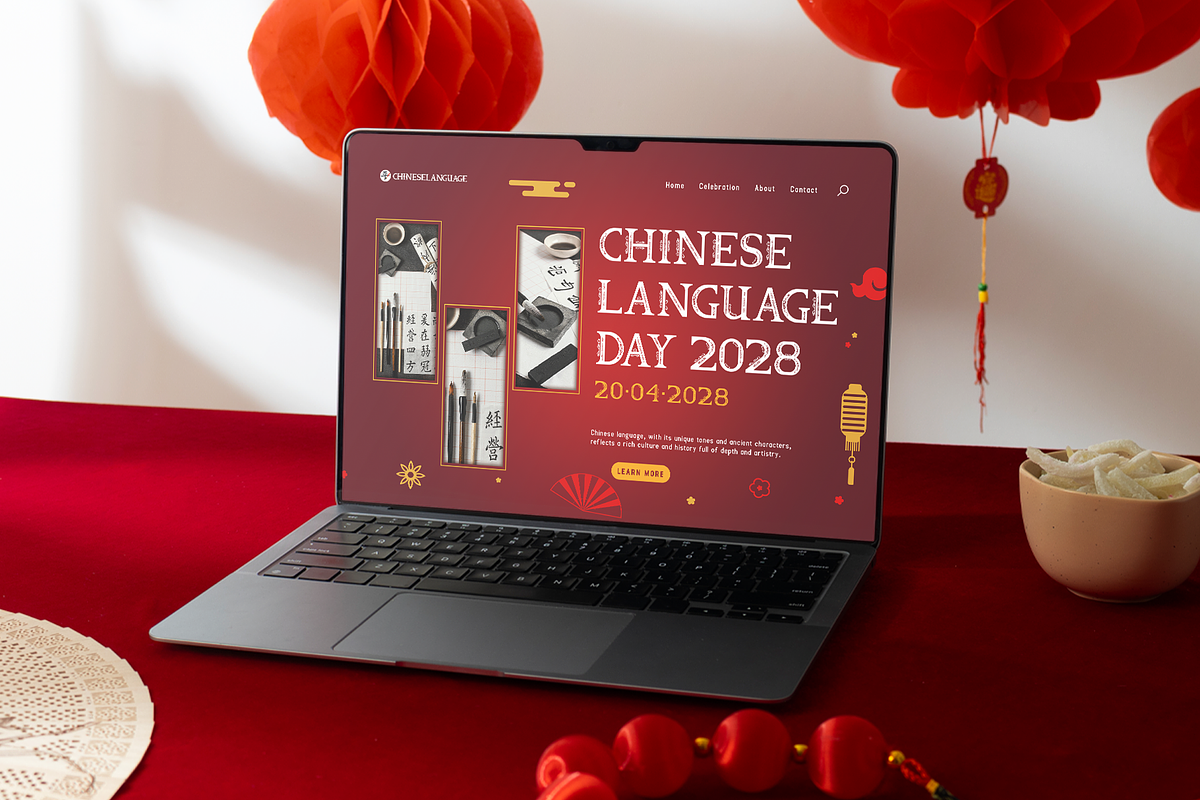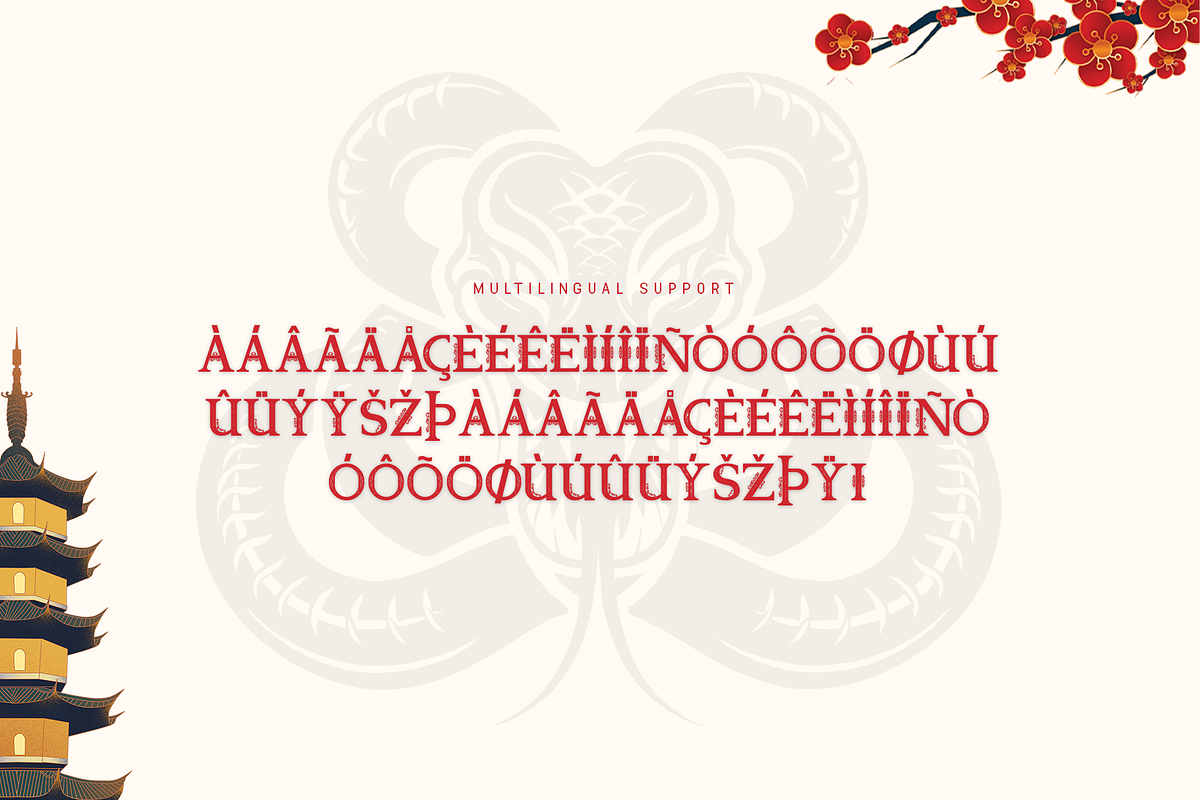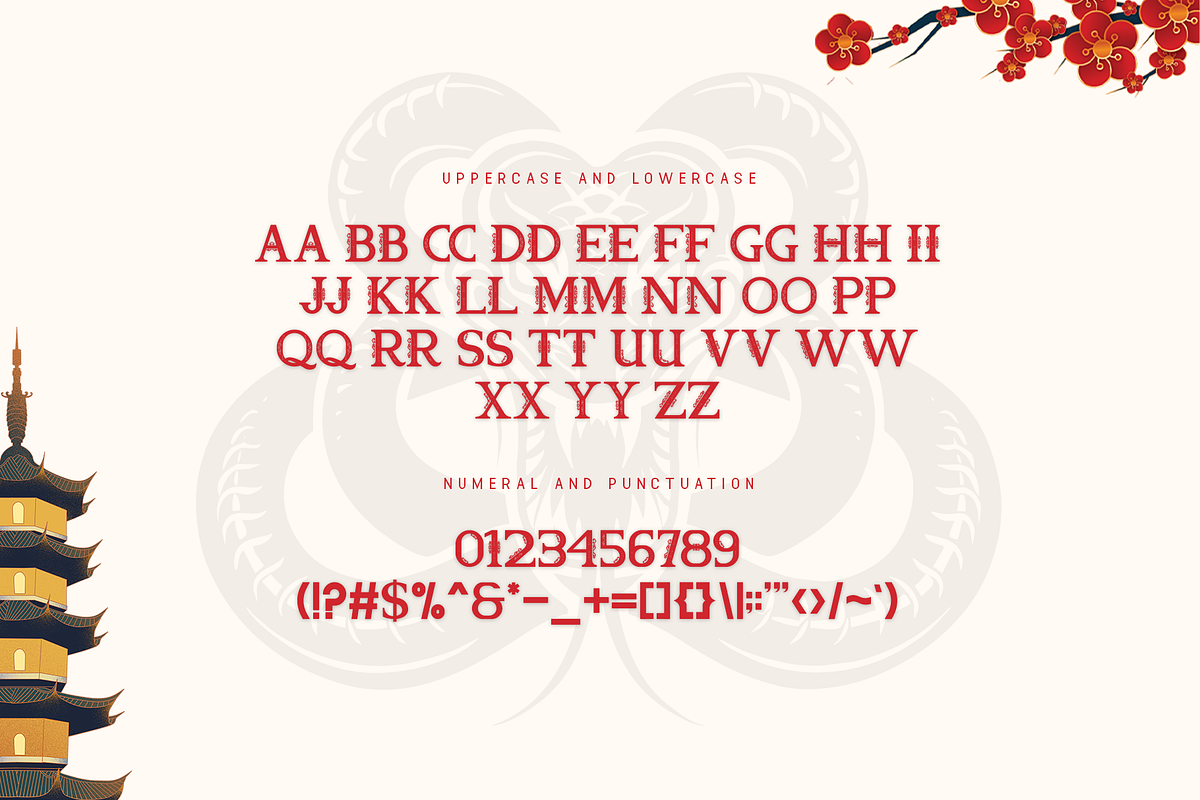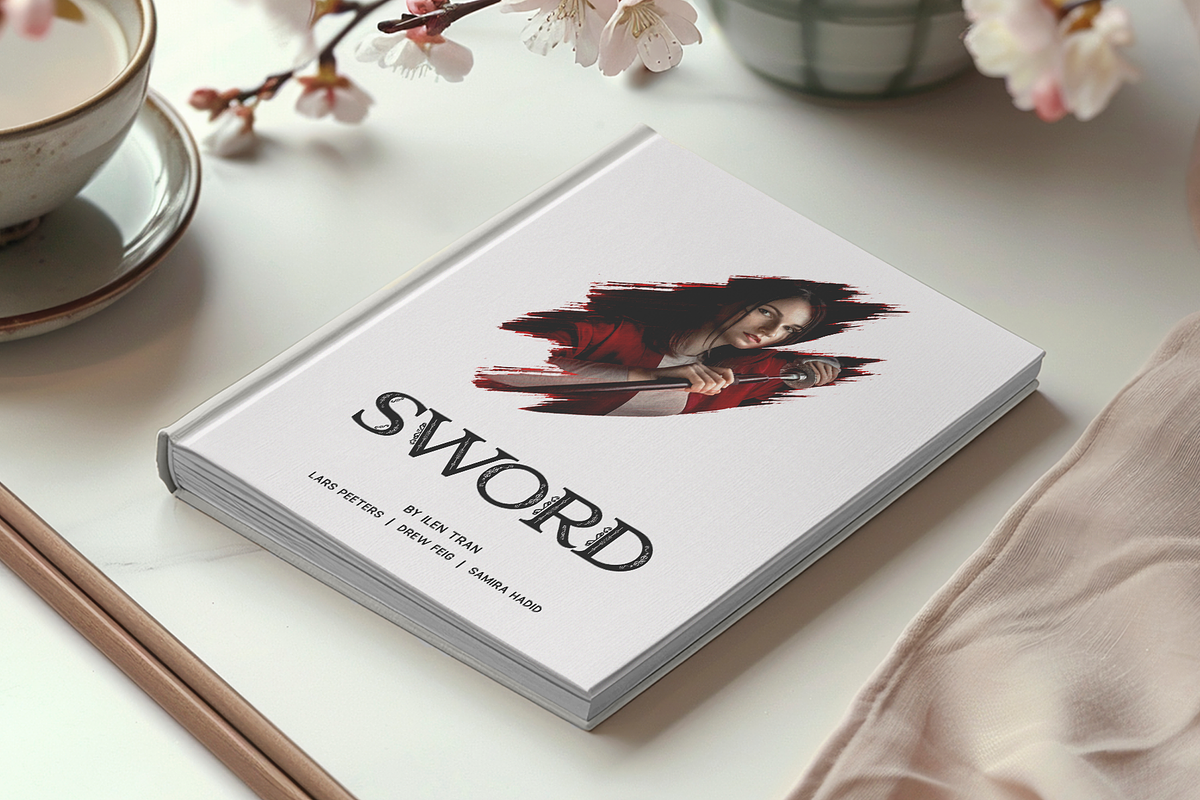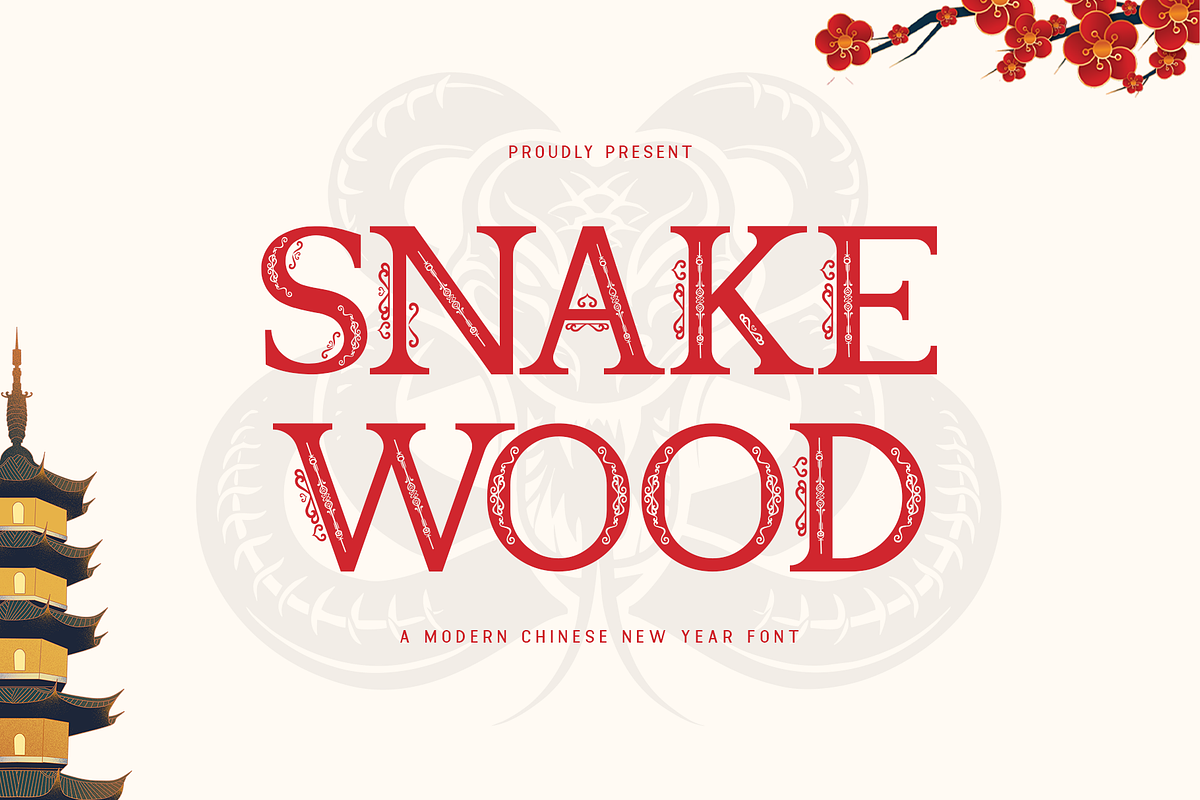
Snake Wood - Modern Chinese New Year
Snake Wood - A Modern Chinese New Year Font
Introducing Snake Wood, a modern font inspired by the harmony of nature and the serpentine grace of the snake. Perfect for Chinese New Year celebrations, this typeface brings a unique combination of organic textures and bold, dynamic shapes, making it an ideal choice for festive designs.
The natural wood-inspired patterns in the characters give Snake Wood an earthy, elegant feel, while its sleek lines and modern aesthetic ensure your designs remain eye-catching and contemporary. Ideal for event posters, invitations, branding, and holiday promotions, this font embodies renewal, wisdom, and prosperity qualities central to the Lunar New Year.
Complete with uppercase and lowercase letters, numerals, punctuation, and multilingual support, Snake Wood offers versatility for global creative projects. Whether you're creating vibrant holiday materials or sophisticated logos, this font infuses your work with style and cultural depth.
Snake Wood is the perfect font to bring a natural yet festive touch to your Chinese New Year designs.